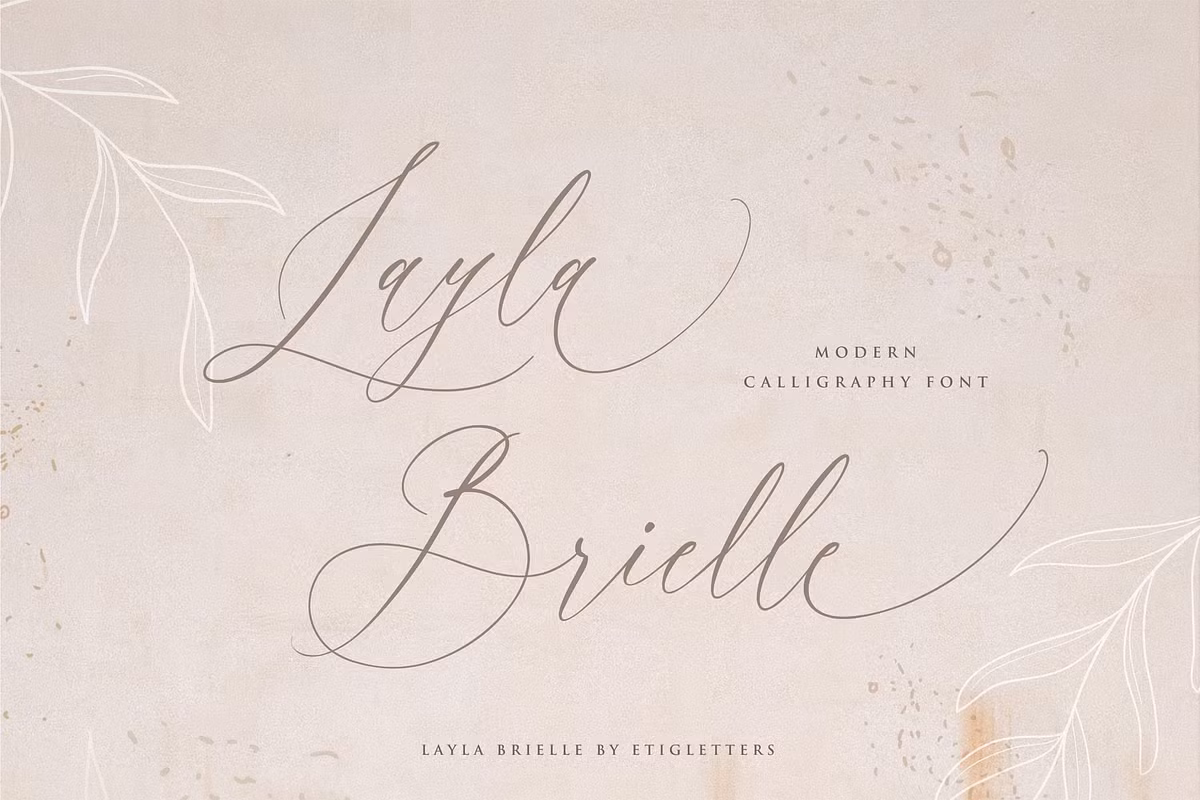
Layla Brielle Font Free Download
Layla Brielle Font Free Download is an elegant calligraphy typeface that exudes sophistication and charm. Ideal for wedding invitations, personal branding, elegant logos, and websites requiring a luxurious handwritten touch, this font adds a graceful flair to any project. It features a full set of uppercase and lowercase letters, numerals, and ligatures, with lowercase letters including beginning and ending swashes for a realistic handwritten style. Additionally, Layla Brielle supports multilingual characters and is PUA encoded for easy access to special characters.
Experience the refined beauty of Layla Brielle Font Free Download in your personal projects. Its delicate strokes and flowing design will bring an air of elegance and personalization to your work, making it truly stand out.